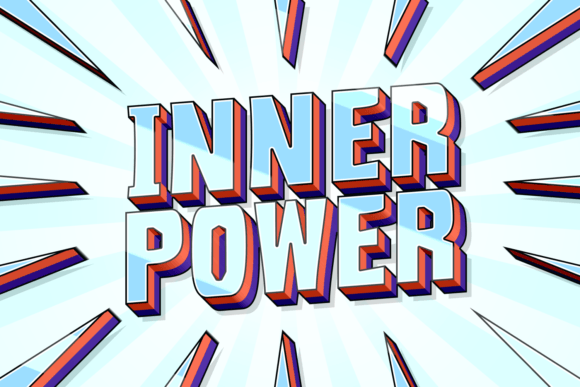
Unleash your inner power with our extraordinary display font, crafted to captivate and inspire. Dive into a world of bold and chunky letters, brimming with personality and charm. This font is a visual masterpiece, drawing inspiration from the vibrant world of cartoons and comic books. With its playful and energetic style, Inner Power is the ultimate choice for designers seeking to make a lasting impact.
Step into a realm where creativity knows no bounds. Let your imagination run wild as you explore the endless possibilities of this remarkable font. Create book covers that leap off the shelves, headlines that demand attention, and titles that ignite curiosity. Design eye-catching advertisements that leave an indelible mark on your audience. Elevate your product packaging with a touch of whimsy and creativity. Unleash your inner child and design kids' t-shirts that spark joy and laughter. Bring your apps and games to life with vibrant and engaging typography that captivates users at first sight.
Inner Power is a font that transcends boundaries, effortlessly adapting to a myriad of design projects. Its versatility knows no limits, allowing you to craft stunning logos, social media graphics, and website designs that resonate with your audience. With its playful and inviting nature, this font has the power to transform your creative vision into a tangible reality.
Don't settle for ordinary fonts that blend into the background. Embrace the extraordinary with Inner Power and watch your designs come alive. Let your creativity soar and embark on a typographic adventure like never before. Unleash the power within you and make a statement that will leave your audience in awe. Immerse yourself in the world of Inner Power and experience the transformative power of exceptional typography.